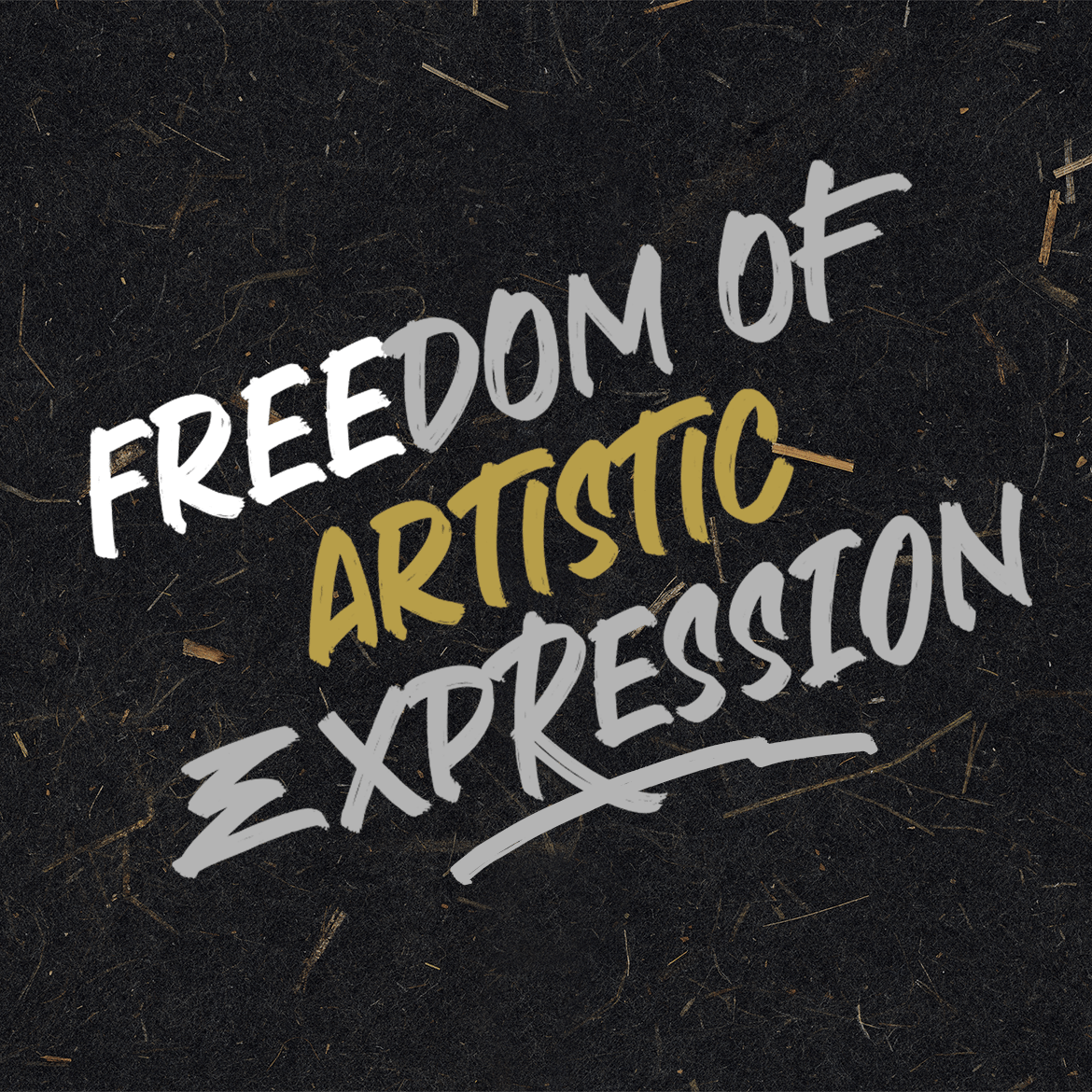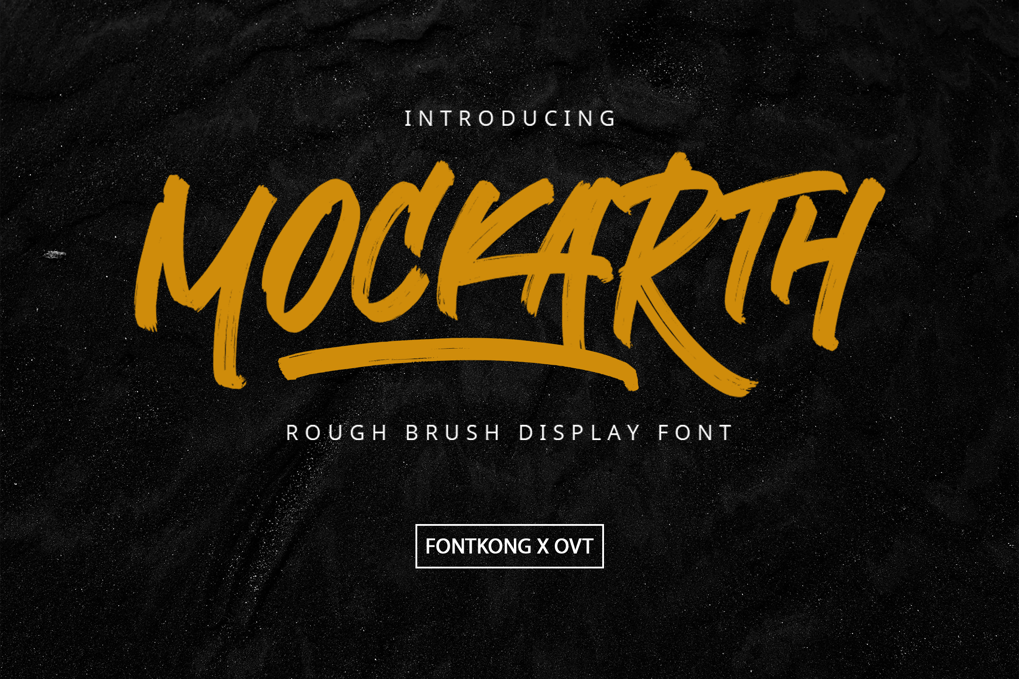
Mockarth – Rough Brush Display Font
Introducing “Mockarth,” a rough brush display font that infuses your projects with boldness and raw artistic energy. Perfect for graphic designers, illustrators, and creatives who want to add a rugged and dynamic touch to their work, Mockarth combines the power of brush strokes with an edgy design.